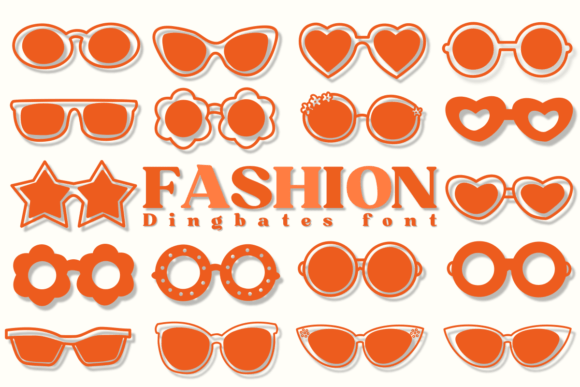
Fashion Font: Elevate Your Creative Projects with a Cute Dingbats Font
Are you a designer, crafter, or DIY enthusiast looking for a unique and fun font to add a touch of personality to your projects? Look no further than Fashion Font, a delightful dingbats font that is sure to inspire your creativity. In this article, we’ll explore the features and benefits of Fashion Font, and how it can enhance your creative projects, from wedding invitations to logos and beyond.
What is Fashion Font?
Fashion Font is a cute dingbats font with a fun theme that is perfect for adding a touch of whimsy to your designs. The font features a range of stylish and trendy symbols, including fashion-related icons, shapes, and motifs that are sure to delight designers and crafters alike. With its playful and eye-catching design, Fashion Font is ideal for a wide range of creative projects, from wedding invitations and DIY crafts to decorations, logos, and more.
Key Features of Fashion Font
- Cute and playful design: Fashion Font features a range of adorable symbols and motifs that are sure to add a touch of personality to your designs.
- Fashion-themed icons: The font includes a range of fashion-related icons, such as hats, shoes, bags, and more, making it perfect for designers and crafters who love fashion.
- Easy to use: Fashion Font is a dingbats font, which means it’s easy to use and can be installed on your computer or mobile device in just a few clicks.
- Versatile: Fashion Font can be used for a wide range of creative projects, from wedding invitations and DIY crafts to decorations, logos, and more.
Creative Ways to Use Fashion Font
Fashion Font is a versatile font that can be used for a wide range of creative projects. Here are some ideas to get you started:
- Wedding Invitations: Add a touch of whimsy to your wedding invitations with Fashion Font. Use the font to create custom illustrations, borders, and other design elements that will make your invitations stand out.
- DIY Crafts: Fashion Font is perfect for DIY crafters who love to make their own decorations, cards, and gifts. Use the font to add a personal touch to your crafts and make them extra special.
- Logos and Branding: Fashion Font can be used to create custom logos and branding elements for fashion-related businesses. The font’s stylish and trendy design makes it perfect for fashion brands who want to stand out.
- Decorations: Use Fashion Font to create custom decorations for parties, events, and other special occasions. The font’s fun and playful design makes it perfect for creating eye-catching decorations that will delight your guests.
Tips for Using Fashion Font
Here are some tips for using Fashion Font in your creative projects:
- Experiment with different sizes and colors: Fashion Font looks great in a range of sizes and colors. Experiment with different combinations to find the one that works best for your project.
- Combine with other fonts: Fashion Font can be combined with other fonts to create a unique and eye-catching design. Try pairing it with a bold sans-serif font for a stylish contrast.
- Use it sparingly: Fashion Font is a bold and eye-catching font, so use it sparingly to avoid overwhelming your design. Use it to add a touch of personality to your project, rather than overpowering it.
Fashion Font is a delightful dingbats font that is sure to inspire your creativity. With its cute and playful design, fashion-themed icons, and easy-to-use format, it’s perfect for designers, crafters, and DIY enthusiasts who love fashion. Whether you’re creating wedding invitations, DIY crafts, logos, or decorations, Fashion Font is a versatile font that can add a touch of personality to your projects. So why not give it a try and see what amazing creations you can come up with?